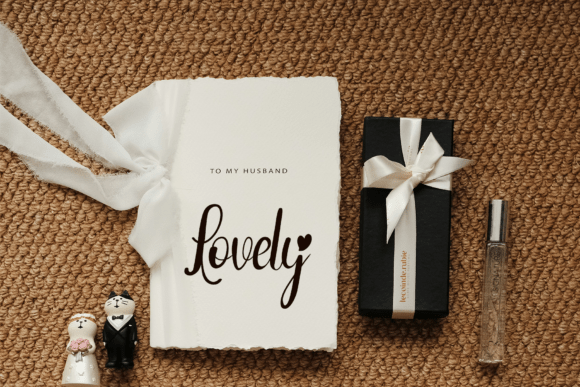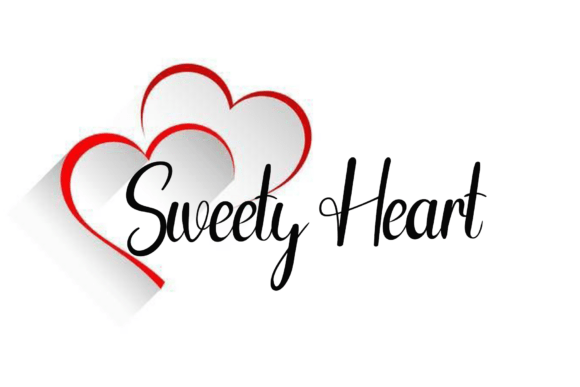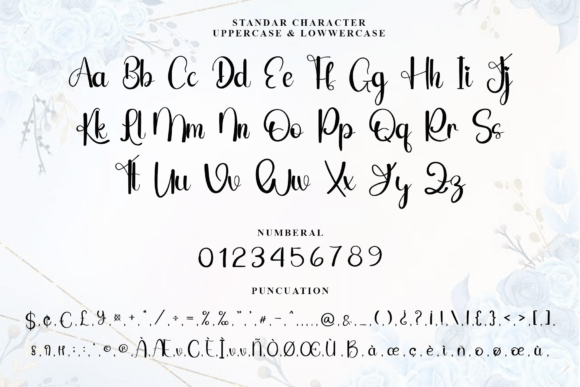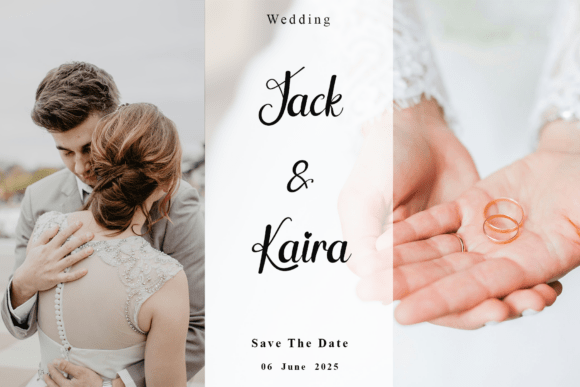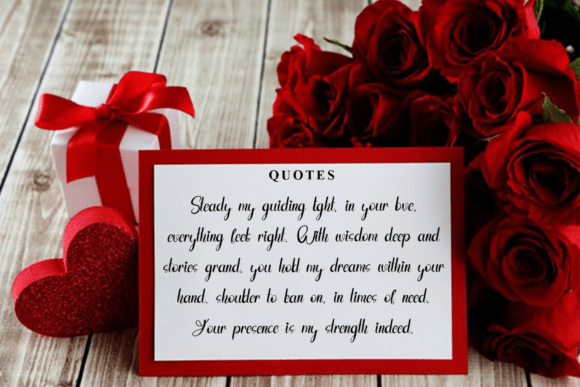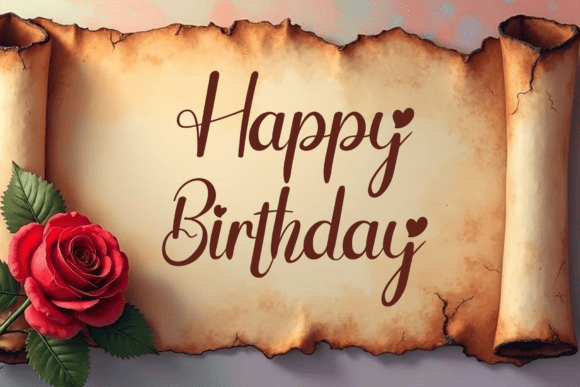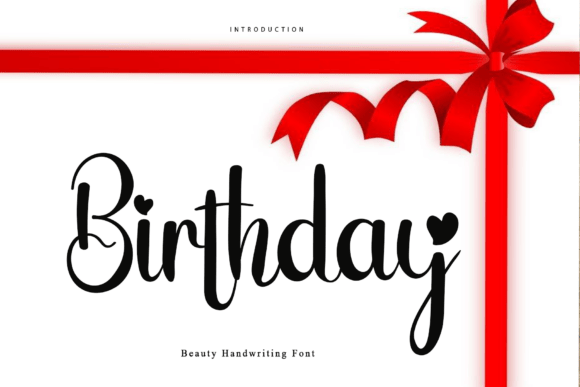
Introducing Birthday Font: The Simple Handwritten Font for All Occasions
Are you looking for a font that can add a personal touch to your designs? Look no further than Birthday Font, a simple handwritten font that is perfect for a wide range of applications. From greeting cards to headlines, this versatile font is guaranteed to bring a simple and natural feel to your next project.
What is Birthday Font?
Birthday Font is a beautifully crafted handwritten font that is designed to be easy to read and fun to use. Its simplicity makes it perfect for a variety of design projects, from casual greeting cards to more formal headlines. The font’s natural and effortless look makes it ideal for designers and crafters who want to add a personal touch to their work.
- Simple and Handwritten: Birthday Font is a handwritten font that is simple, yet elegant. Its unique character makes it stand out from other fonts, making it perfect for designs that require a personal touch.
- Versatile: This font is incredibly versatile and can be used for a wide range of applications, from greeting cards to headlines, and even social media graphics.
- Easy to Read: The font is designed to be easy to read, making it perfect for body text and headlines.
- Natural Feel: Birthday Font has a natural and effortless look that makes it perfect for designers and crafters who want to add a personal touch to their work.
Uses of Birthday Font
Birthday Font is a versatile font that can be used for a wide range of applications, including:
- Greeting Cards: The font’s simple and handwritten design makes it perfect for greeting cards, whether it’s for a birthday, anniversary, or holiday.
- Headlines: Birthday Font can be used to create eye-catching headlines for blogs, social media graphics, and even advertisements.
- Social Media Graphics: The font’s natural and effortless look makes it perfect for social media graphics, such as Instagram posts and Facebook graphics.
- Branding: Birthday Font can be used to create a unique and recognizable brand identity for businesses and individuals.
Benefits of Using Birthday Font
Using Birthday Font in your designs can have a number of benefits, including:
- Unique and Recognizable: The font’s simple and handwritten design makes it unique and recognizable, which can help your designs stand out from the crowd.
- Easy to Read: The font’s easy-to-read design makes it perfect for body text and headlines.
- Versatile: Birthday Font can be used for a wide range of applications, making it a great addition to any designer’s toolkit.
- Time-Saving: The font’s simple and natural design makes it easy to use and can save you time in the design process.
Tips for Using Birthday Font
Here are a few tips for using Birthday Font in your designs:
- Use it for Headlines: Birthday Font is perfect for headlines, whether it’s for a blog post, social media graphic, or advertisement.
- Pair it with Other Fonts: The font’s simple design makes it easy to pair with other fonts, creating a unique and recognizable design.
- Use it for Body Text: Birthday Font is easy to read, making it perfect for body text.
- Experiment with Colors: The font’s natural design makes it perfect for experimenting with different colors and color combinations.
Birthday Font is a simple handwritten font that is perfect for a wide range of applications. Its versatility, ease of use, and natural design make it a great addition to any designer’s toolkit. Whether you’re creating greeting cards, headlines, or social media graphics, Birthday Font is guaranteed to add a simple and natural feel to your next project.